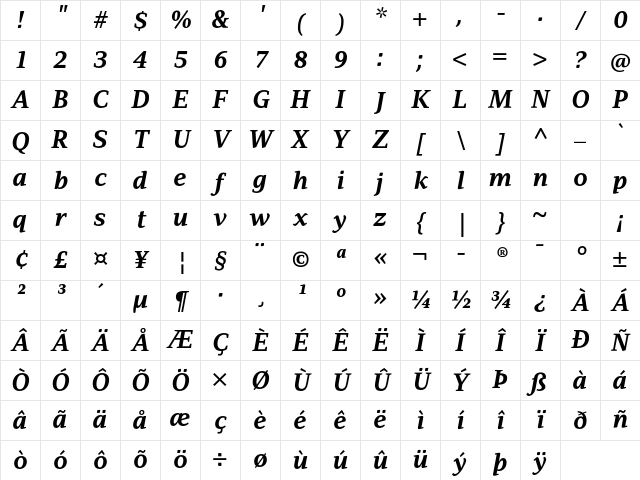
Complete Adamant BG Bold Italic glyph index. Displaying only characters natively supported by Adamant BG Bold Italic font.
Adamant BG is a composed and adaptable typeface that performs quietly and consistently across a wide range of design contexts. The slanted form adds forward momentum and visual energy. Its bold stroke weight gives it real presence on the page.
Pro Tip: Use Adamant BG for emphasis, pull quotes, and subheadings where its slanted energy can add rhythm to the layout.